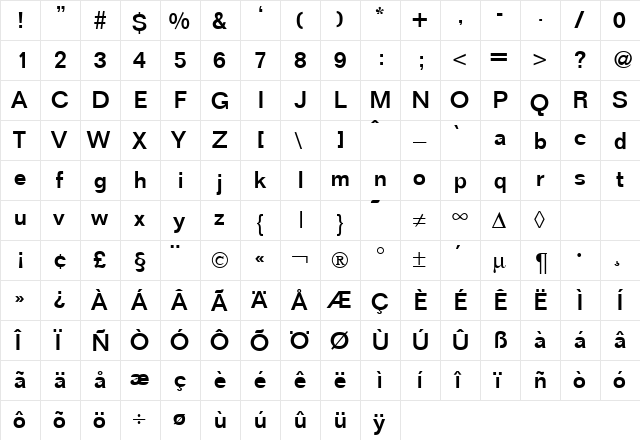
FocusMedium Regular Font Preview
FocusMedium Regular
Design Context for FocusMedium Typeface
FocusMedium offers clean, dependable letterforms without strong stylistic allegiance, making it a practical choice for designers who need flexibility.
Pro Tip: Pair FocusMedium with a font of contrasting weight or personality to build a more expressive typographic hierarchy.